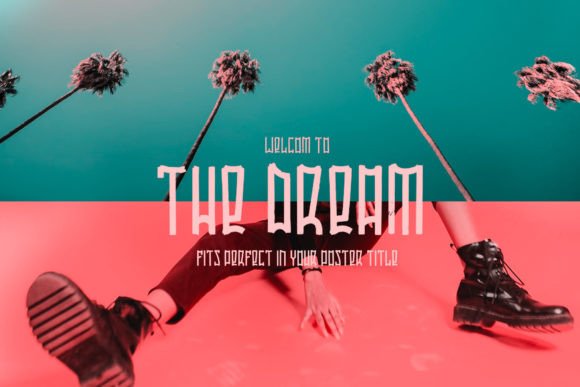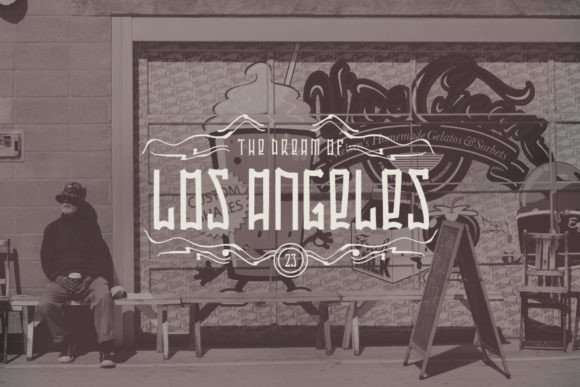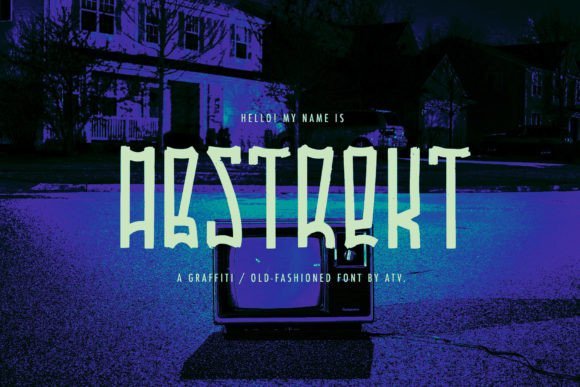
Introduction to Abstrekt Font
Abstrekt is a cool, old-fashioned handwritten display font.
Its urban, graffiti style is perfect for creating unique, trendy designs .
Why Choose Abstrekt Font?
Abstrekt Font offers exceptional quality and versatility, making it a valuable addition to your design toolkit. Whether you’re creating for personal projects or commercial use, Abstrekt Font delivers professional results.